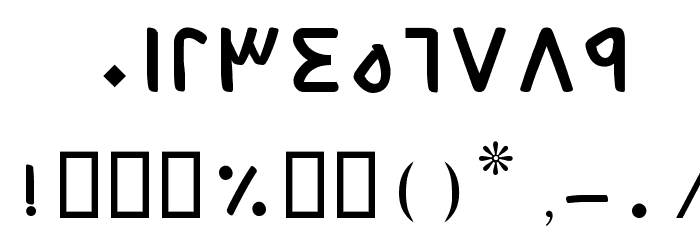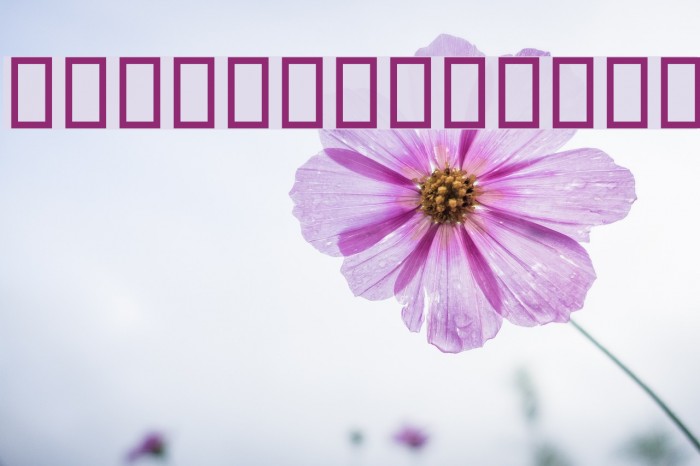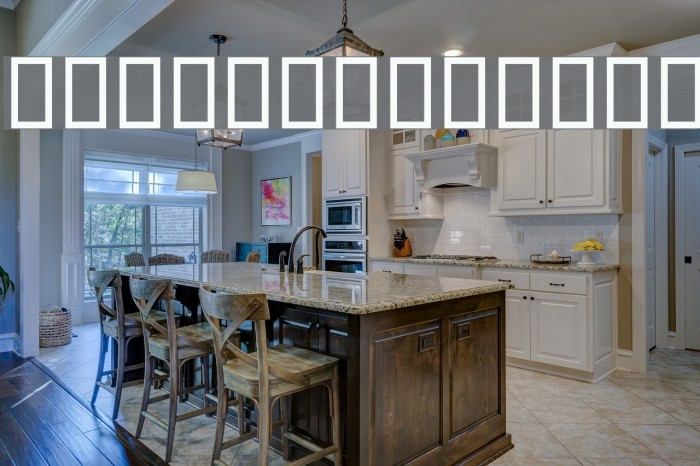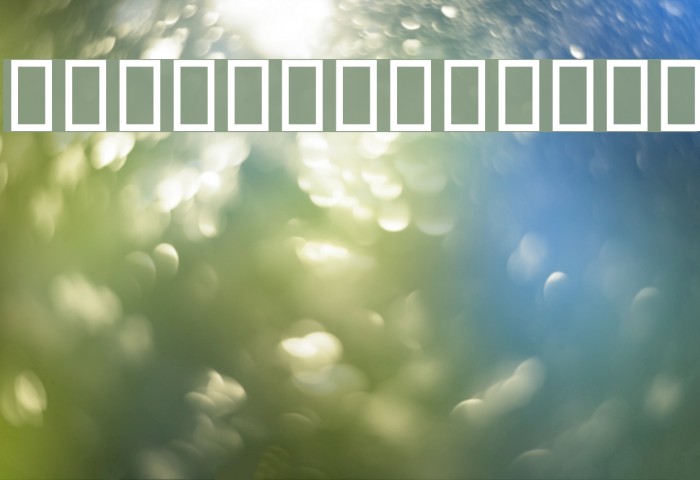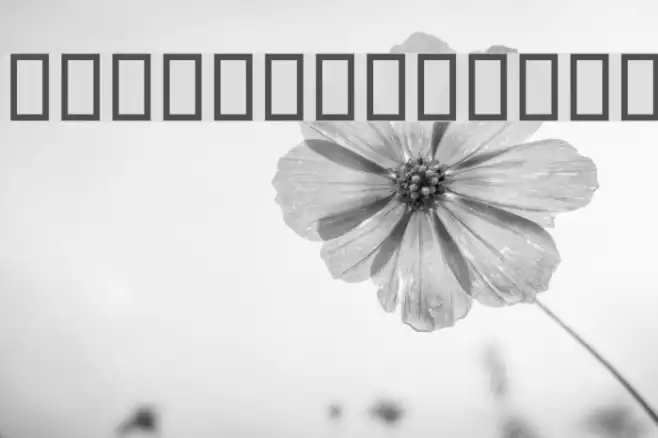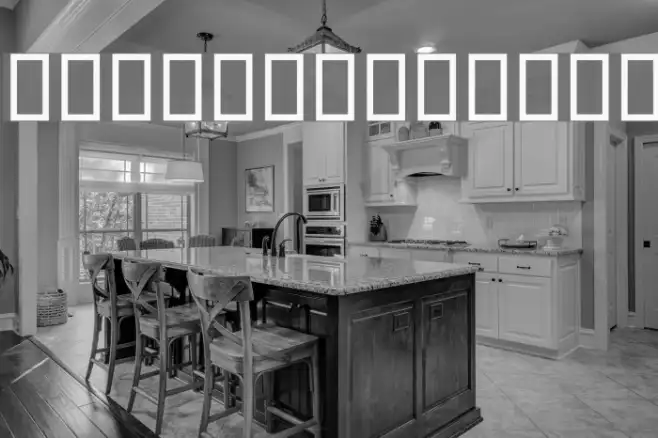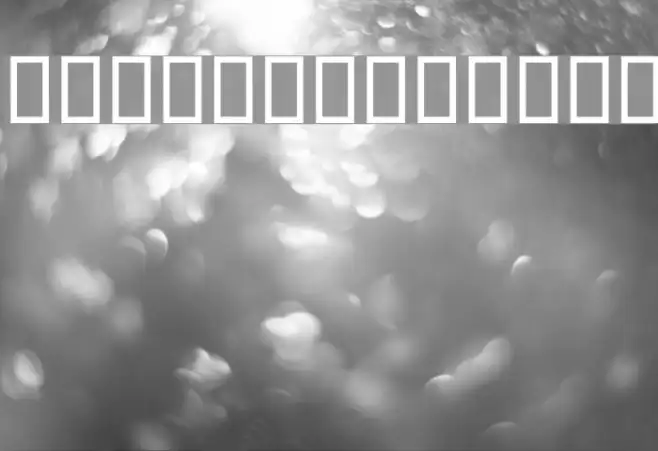
Mahsaa Font
This font features a playful and casual style, characterized by its rounded and slightly irregular letterforms. The letters have a hand-drawn quality, giving them a friendly and approachable appearance. The numbers and special characters maintain this informal style, with consistent stroke thickness throughout. The overall look is cohesive, making it suitable for projects that require a touch of whimsy or creativity. The font's design is versatile, allowing it to be used in various contexts while maintaining readability and charm.
A playful, hand-drawn style with rounded, irregular letterforms.
- Proposed Projects: Ideal for children's books, creative posters, casual branding, and playful invitations.
- Overall Style: Casual
- Use Case: Headlines, Logos, Invitations